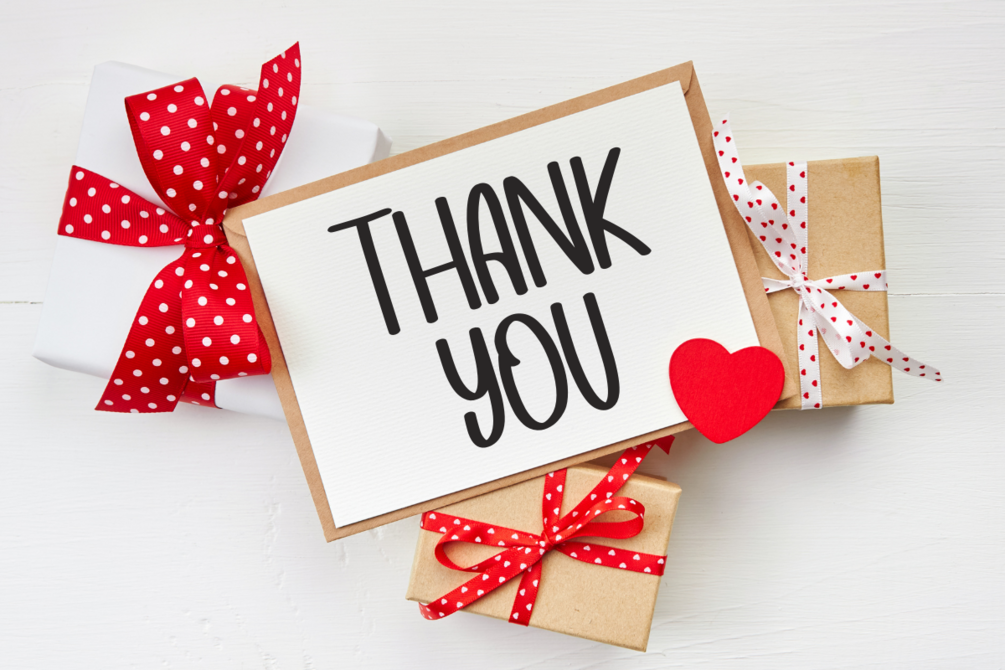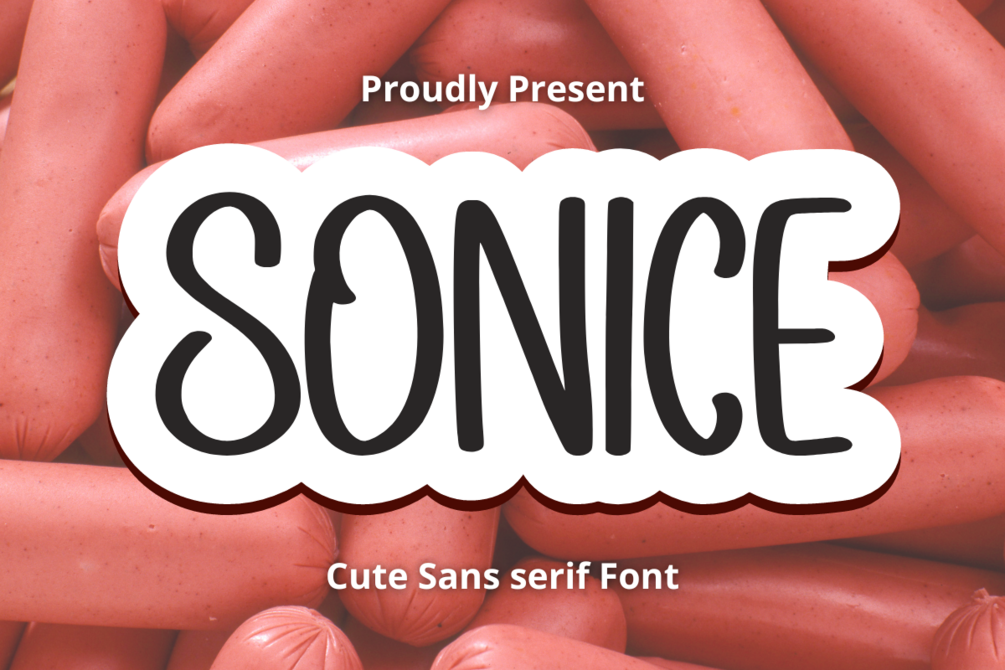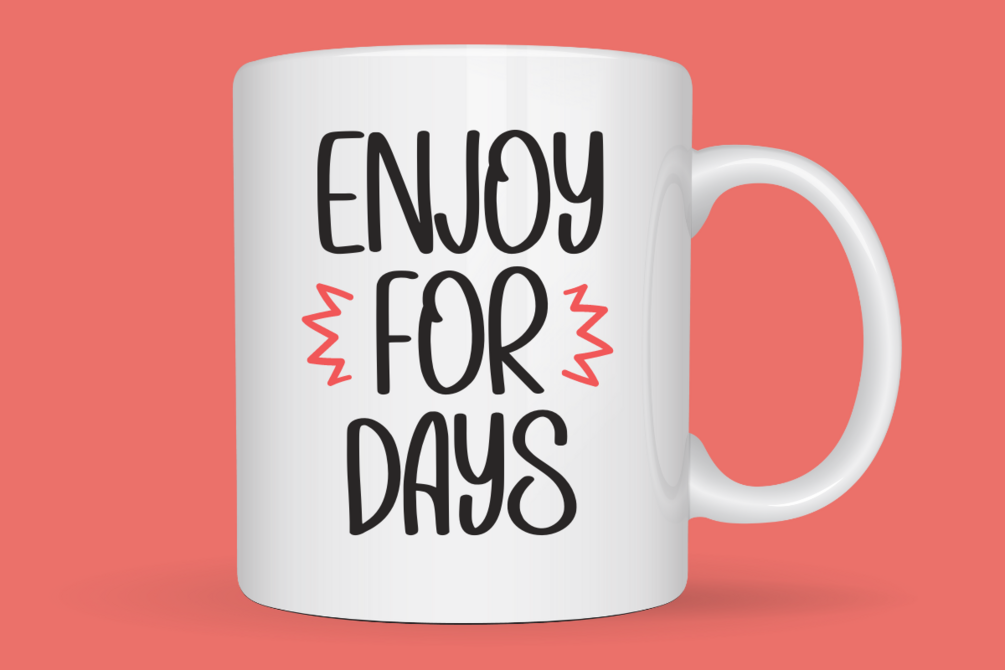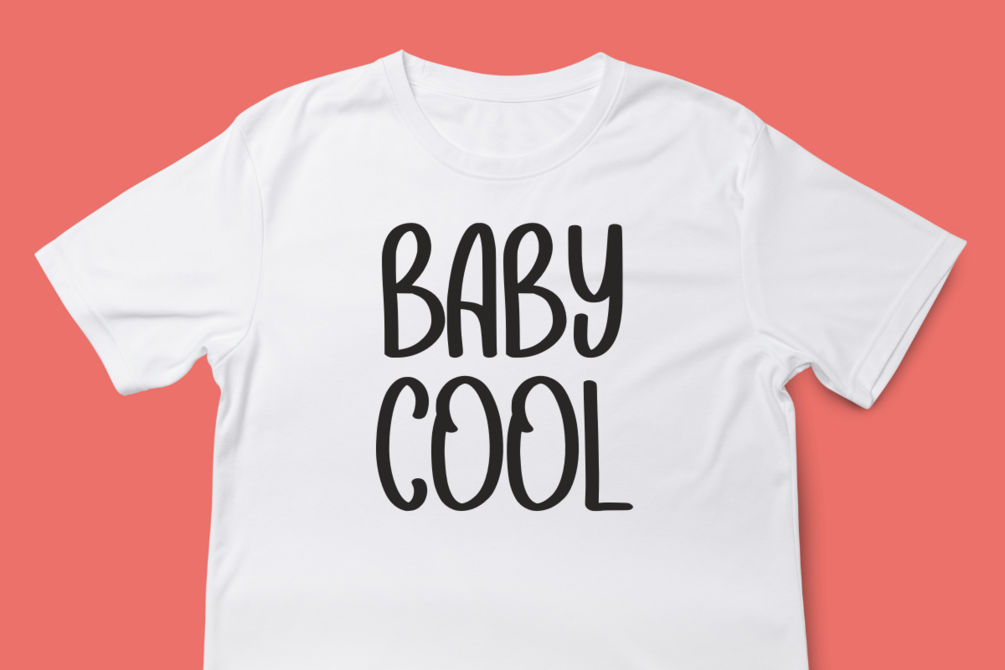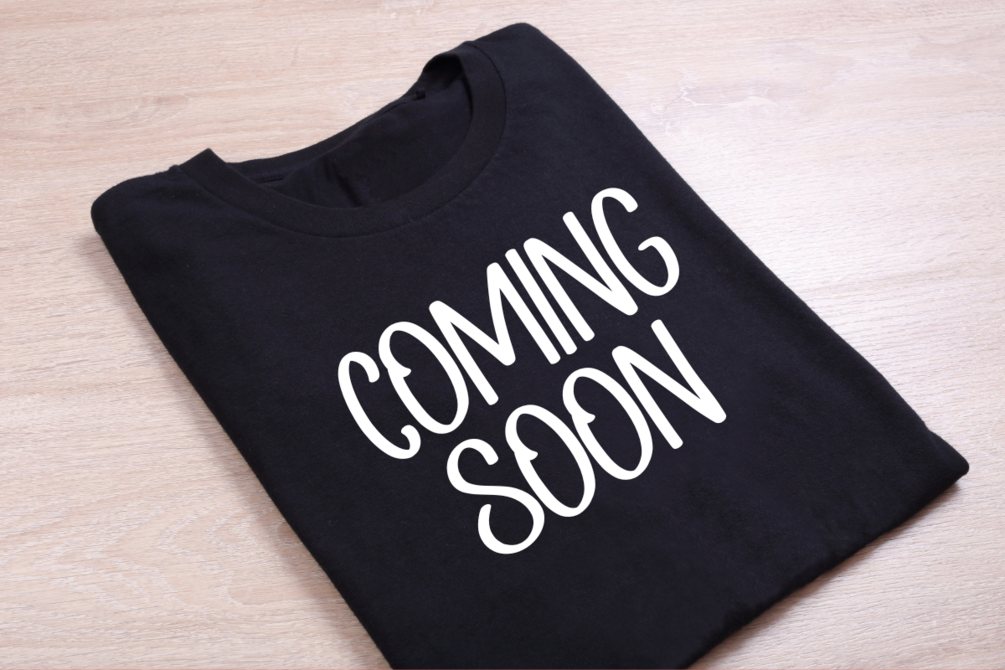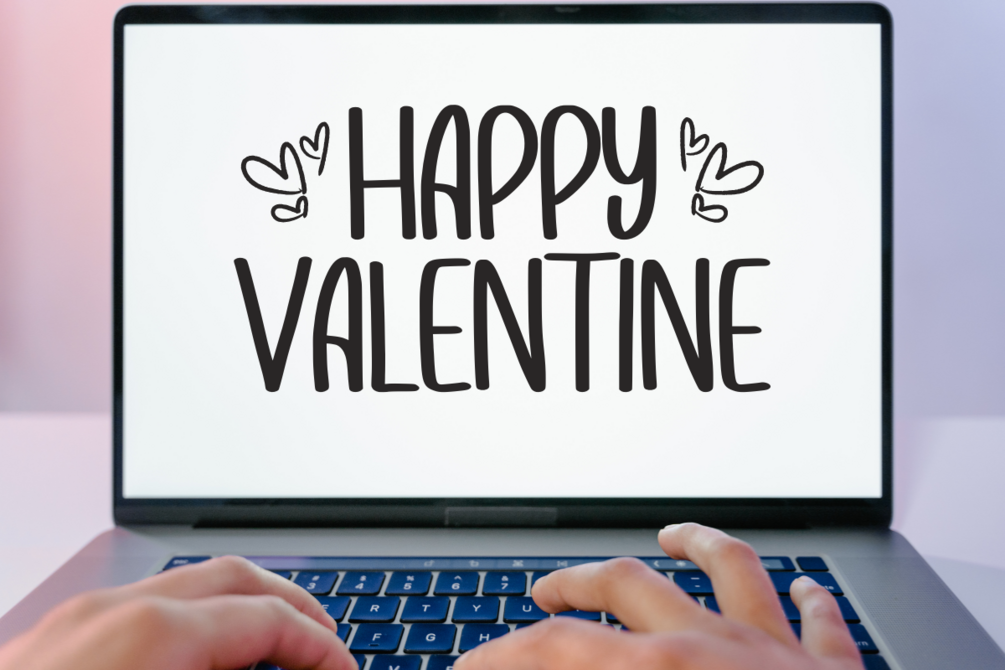
Sonice - Cute Sans Serif Font
Sonice is a cute and fun sans serif font. The wide characters and chunky serifs make this font ideal for eye-catching designs. You can use it for headlines, t-shirt typography, banners, product labels, and many more.